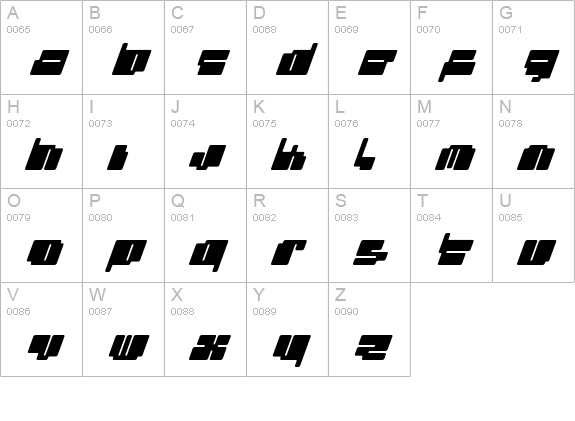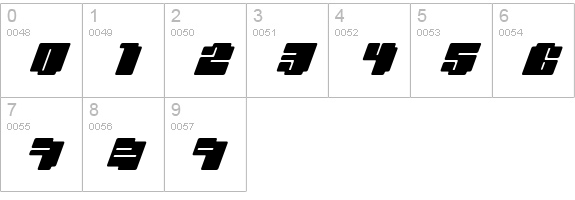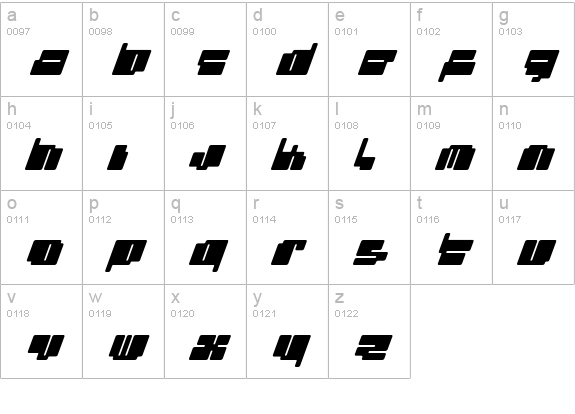
cheaptype (italic) is a distinctive, italic variant in the cheaptype typeface family \xE2\x80\x94 well suited to design and typography projects.
Introducing cheaptype (italic) font, a sleek and modern typeface that exudes elegance and sophistication. This stylish font is perfect for adding a touch of class to any project, whether it's a website design, branding materials, or printed materials. The best part? cheaptype (italic) font is completely free to download at FontsMarket.com. Yes, you read that right - you can elevate your designs with this beautiful font without breaking the bank. With its clean lines and contemporary feel, cheaptype (italic) font is versatile enough to be used in a variety of design projects. Whether you're creating a professional presentation or designing eye-catching social media graphics, this font is sure to make a statement. Don't miss out on the opportunity to enhance your designs with cheaptype (italic) font. Download it for free today at FontsMarket.com and take your projects to the next level.